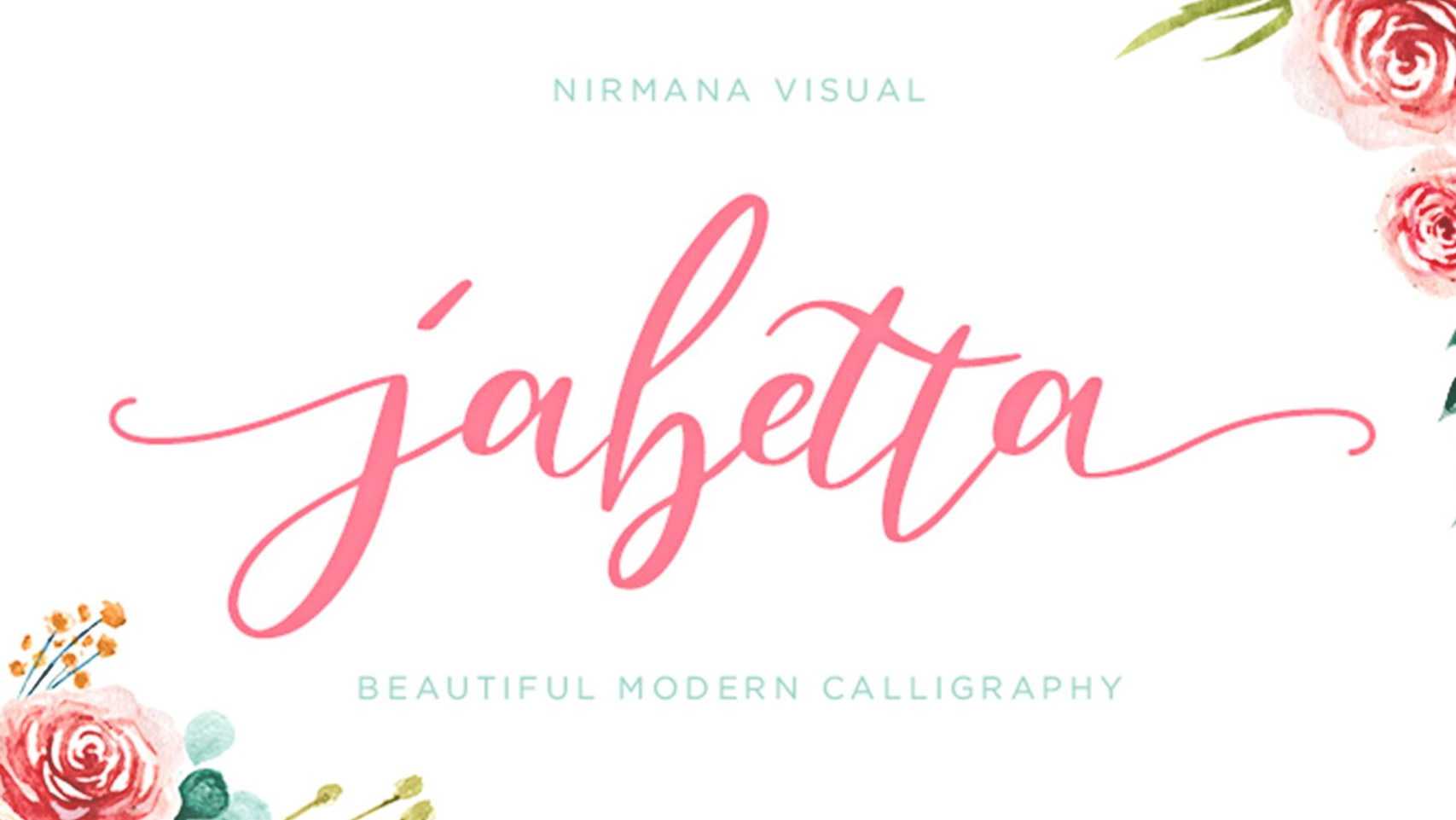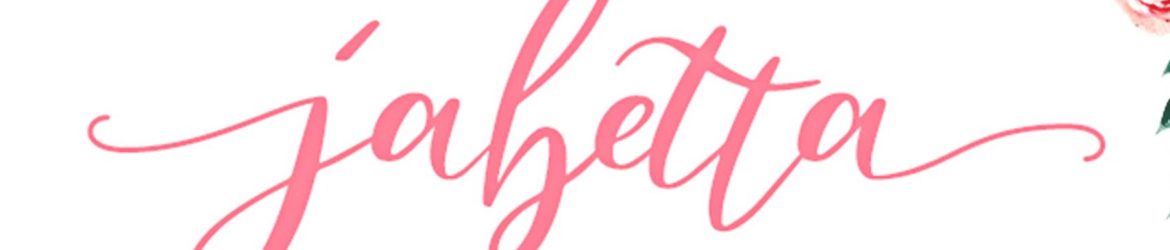
Download Jabetta Script, an organic, casual, smooth dancing font made carefully from the real handwritten. Jabetta font is great choice for your special moment or special project, pair perfectly with another font style.